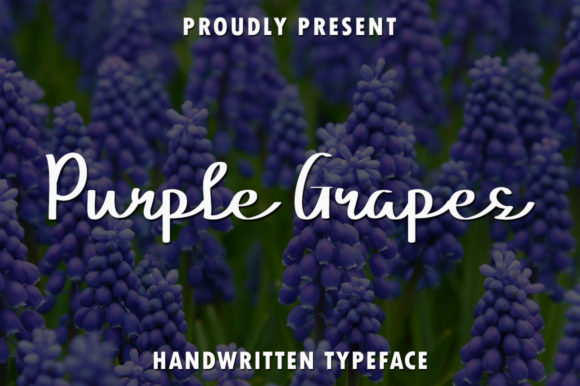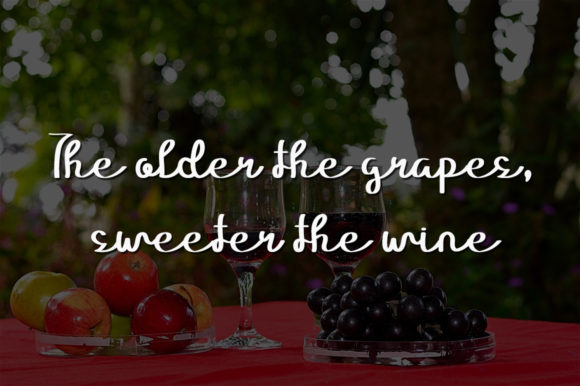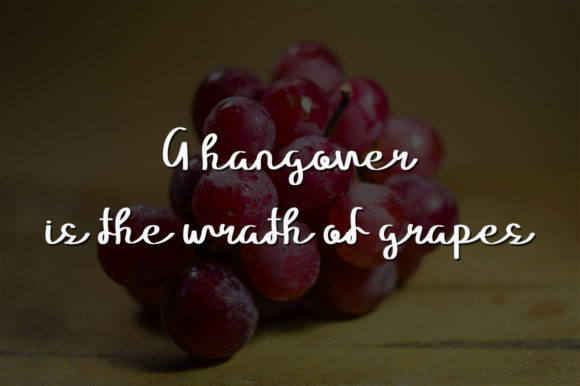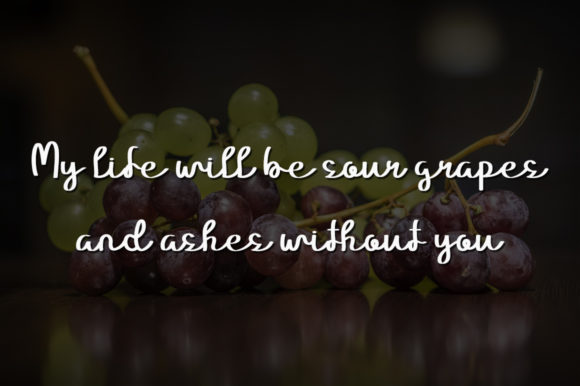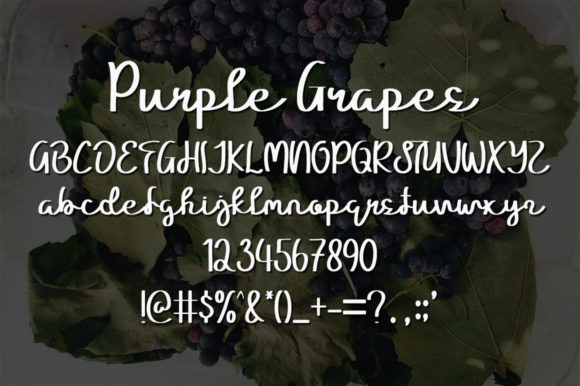
Purple Grapes Font
About Purple Grapes Font
Purple Grapes is a simple and friendly handwritten font that breathes life into your favorite creative ideas. With its charming and approachable style, this font adds a touch of playfulness and warmth to your designs.
The beauty of Purple Grapes lies in its simplicity. The letters have a clean and legible appearance, making it easy to read and understand. The handwritten touch adds a personal and organic feel, as if each letter was written with care and individuality.
When you incorporate Purple Grapes into your designs, you’ll notice how it brings a sense of liveliness and energy. Whether you’re working on invitations, greeting cards, social media posts, or any other creative project, this font adds a delightful and approachable vibe that captures attention.
Purple Grapes is versatile and works well in various design contexts. It pairs nicely with other fonts, allowing you to create unique combinations and harmonious layouts. Its friendly nature makes it suitable for a wide range of themes, from casual and fun to cozy and nostalgic.
With Purple Grapes, you have the freedom to explore and experiment with different design elements. Its simplicity allows it to complement bold graphics or intricate illustrations without overpowering them. It adds a touch of personality without distracting from the overall composition.
This font’s versatility extends to both digital and print designs. It adapts seamlessly to different mediums, whether you’re designing for online platforms or creating physical products. Its readability ensures that your message comes across clearly, while its handwritten charm adds a touch of character and authenticity.
Overall, Purple Grapes is a delightful and friendly handwritten font that brings your creative ideas to life. Its simplicity, approachability, and versatility make it a wonderful choice for a variety of projects. So, add a dash of playfulness and warmth to your designs with Purple Grapes and watch them come alive with personality and charm.